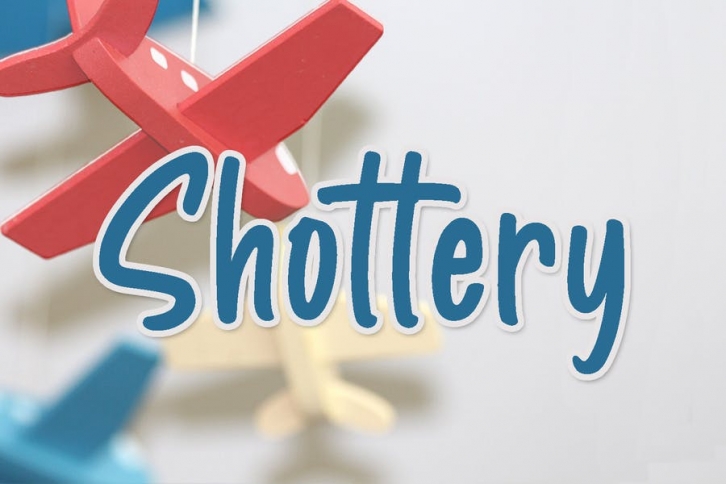
Shottery - Calssy Handwritten FONT Download
Shottery - Calssy Handwritten Font Download
Shottery is a casual, fn display font. Clean and a little bit quirkly, this font is the perfect fit for all of your logos, branding, social media, and crafty DIY projects.
• Accents (Multilingual characters)
• Numerals and Punctuations (OpenType Standard)